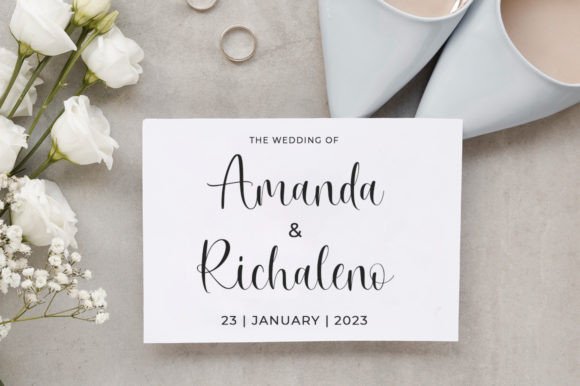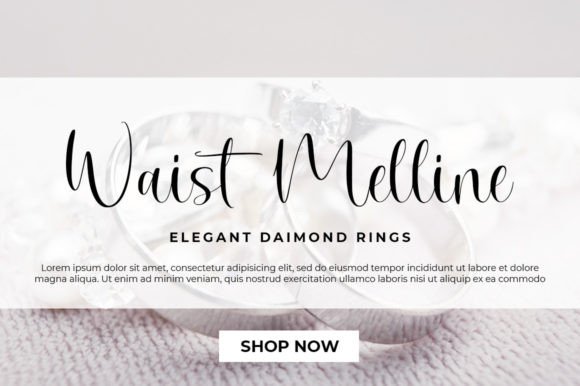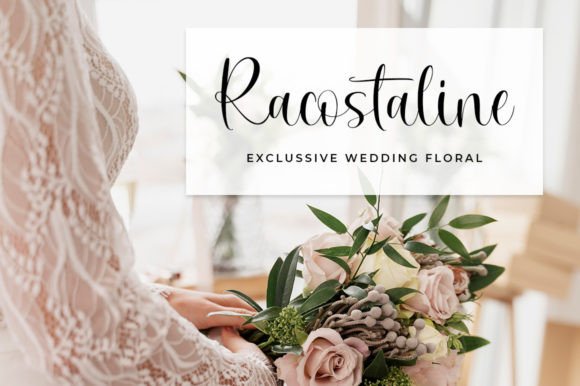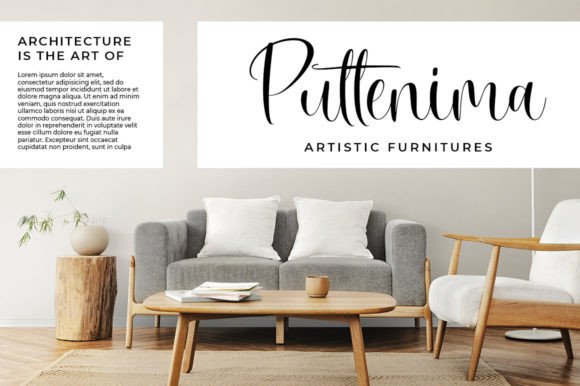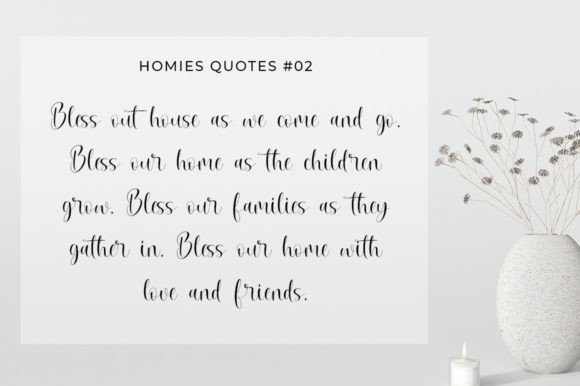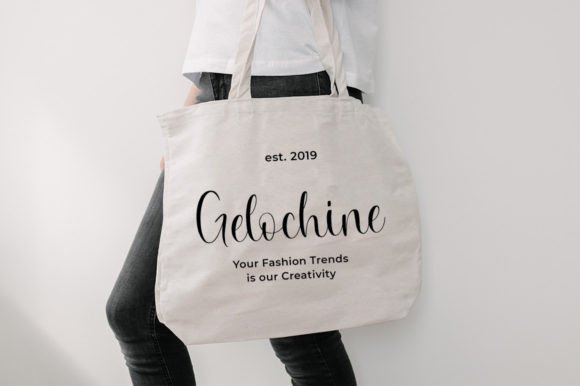
Diviatan Font: The Elegant Script Font for Your Favorite Projects
Are you looking for a font that can add a touch of elegance and sophistication to your designs? Look no further than Diviatan Font! This dainty and elegant script font is perfect for designers and crafters who want to create spectacular designs that stand out from the crowd. In this article, we’ll take a closer look at Diviatan Font, its features, and how you can use it to take your designs to the next level.
What is Diviatan Font?
Diviatan Font is a beautiful script font that is designed to add a touch of elegance and sophistication to your designs. Its incredibly distinct and timeless style makes it perfect for a wide range of projects, from wedding invitations and branding materials to social media graphics and more. With its delicate lines and curves, Diviatan Font is sure to capture the attention of your audience and leave a lasting impression.
Features of Diviatan Font
So, what makes Diviatan Font so special? Here are just a few of its key features:
- Dainty and elegant design: Diviatan Font has a delicate and refined design that is perfect for creating sophisticated and elegant designs.
- Incredibly distinct and timeless style: The font’s unique style is sure to make your designs stand out from the crowd and leave a lasting impression.
- Perfect for a wide range of projects: Whether you’re working on a wedding invitation, branding materials, or social media graphics, Diviatan Font is the perfect choice.
- Easy to read and understand: Despite its elegant design, Diviatan Font is easy to read and understand, making it perfect for body text and headlines.
How to Use Diviatan Font
Now that we’ve covered the features of Diviatan Font, let’s take a look at how you can use it in your designs. Here are a few ideas to get you started:
- Wedding invitations and stationery: Diviatan Font is perfect for creating beautiful and elegant wedding invitations, stationery, and other materials.
- Branding materials: Use Diviatan Font to create sophisticated and elegant branding materials, such as logos, business cards, and letterheads.
- Social media graphics: Add a touch of elegance and sophistication to your social media graphics, such as Facebook posts, Instagram stories, and Twitter headers.
- Signs and displays: Use Diviatan Font to create eye-catching signs and displays that are sure to capture the attention of your audience.
Tips for Using Diviatan Font
Here are a few tips to keep in mind when using Diviatan Font:
- Use it sparingly: While Diviatan Font is beautiful, it can be overwhelming if used too much. Use it sparingly to add a touch of elegance and sophistication to your designs.
- Pair it with other fonts: Experiment with pairing Diviatan Font with other fonts to create a unique and visually appealing design.
- Adjust the size and color: Adjust the size and color of Diviatan Font to fit your design and make it stand out.
In conclusion, Diviatan Font is a beautiful and elegant script font that is perfect for designers and crafters who want to create spectacular designs. Its incredibly distinct and timeless style makes it perfect for a wide range of projects, from wedding invitations and branding materials to social media graphics and more. With its delicate lines and curves, Diviatan Font is sure to capture the attention of your audience and leave a lasting impression. So why wait? Fall in love with Diviatan Font and use it to create stunning designs that stand out from the crowd!